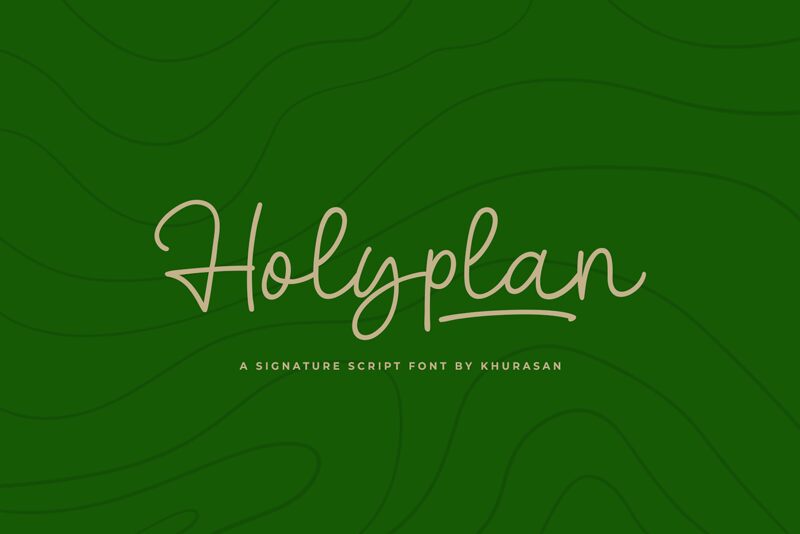
Holyplan
Holyplan, designed by Khurasan, is a captivating handwritten font that exudes a sense of personalized elegance. Its light weight lends a delicate and refined touch to each character, embodying a graceful fluidity that mimics the natural variations of hand-drawn letters. The aesthetic appeal of Holyplan lies in its balance between legibility and artistic flair, making it an ideal choice for projects seeking to convey intimacy and authenticity.
The stylish quirks of this font add character to any design, offering an inviting warmth that's perfect for invitations, branding, or editorial work where a touch of humanity is desired. Whether employed in digital graphics or print media, Holyplan's charm enhances the visual narrative with its distinct handwritten quality. This font's versatility ensures it can adapt to various creative contexts while maintaining its unique allure.